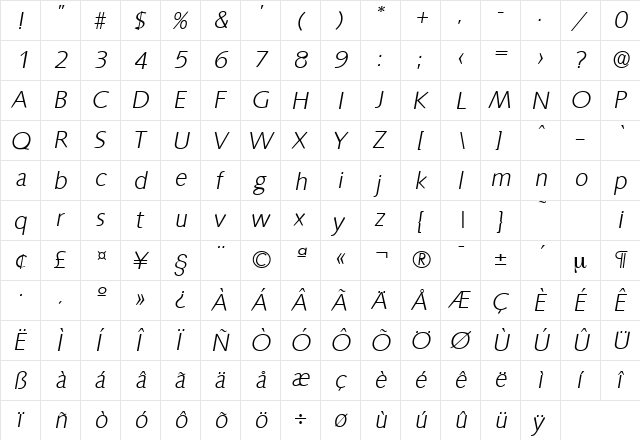
Saxony-Serial-Light RegularItalic Font Preview
Saxony-Serial-Light RegularItalic
Design Context for Saxony-Serial-Light Typeface
Saxony-Serial-Light offers clean, dependable letterforms without strong stylistic allegiance, making it a practical choice for designers who need flexibility. Its italic angle brings a sense of urgency and motion to the letterforms. The delicate stroke weight brings airiness and refinement to layouts.